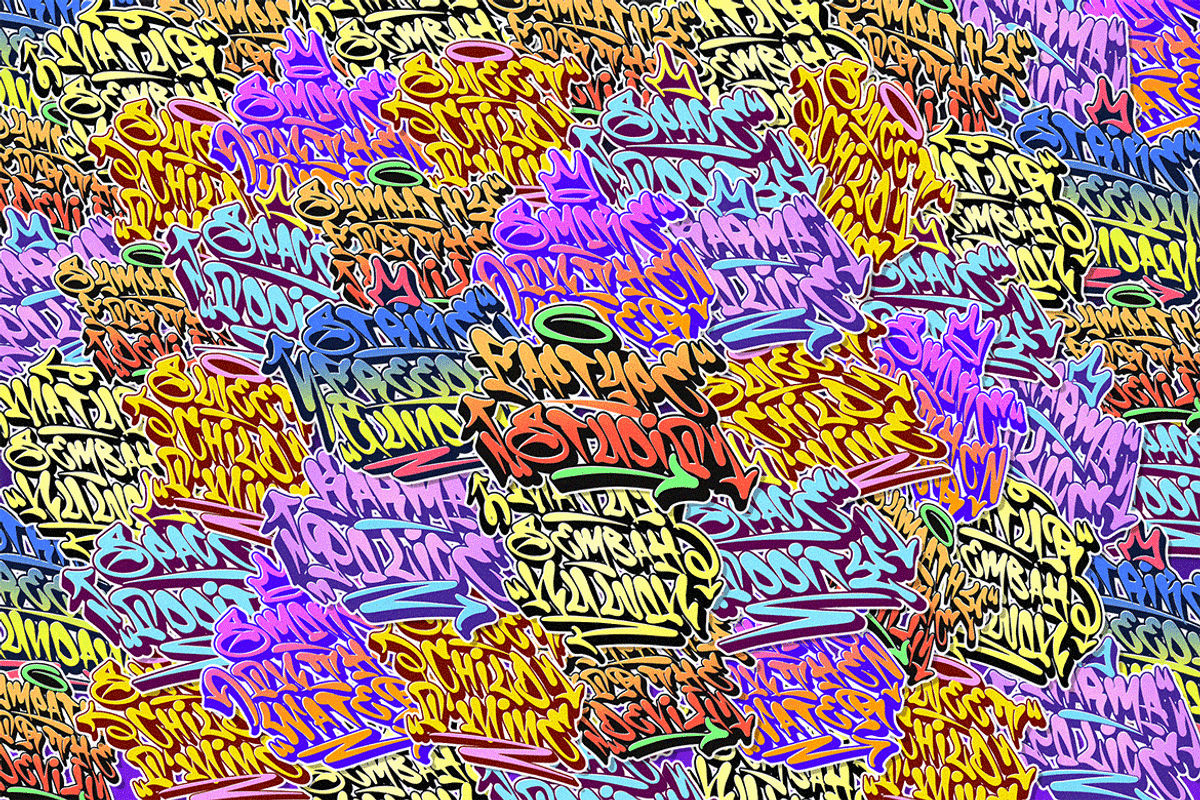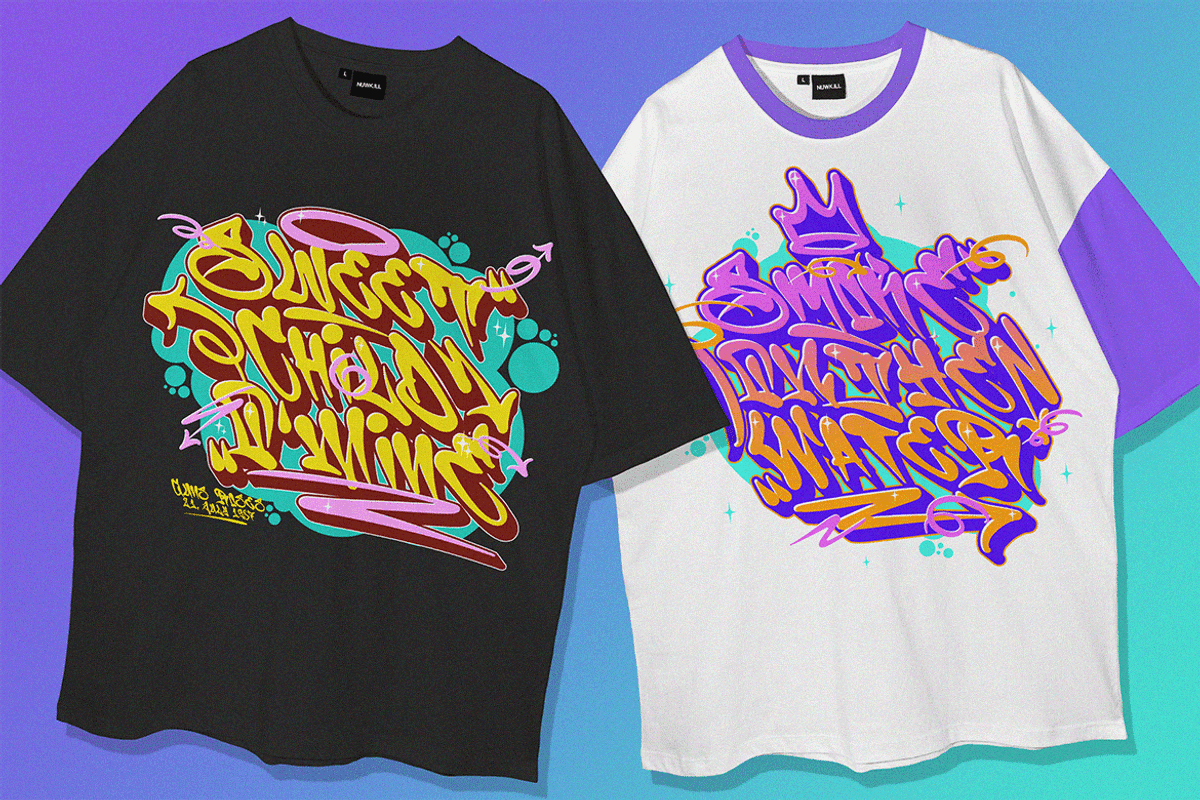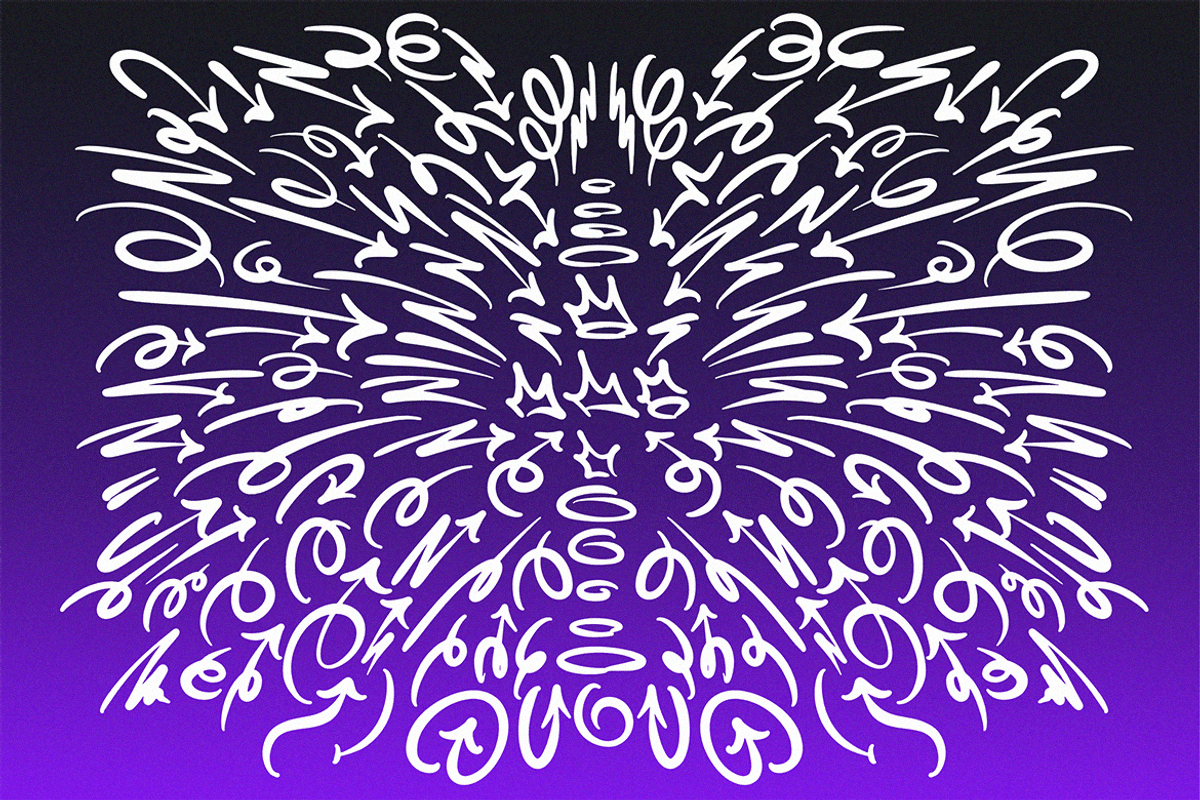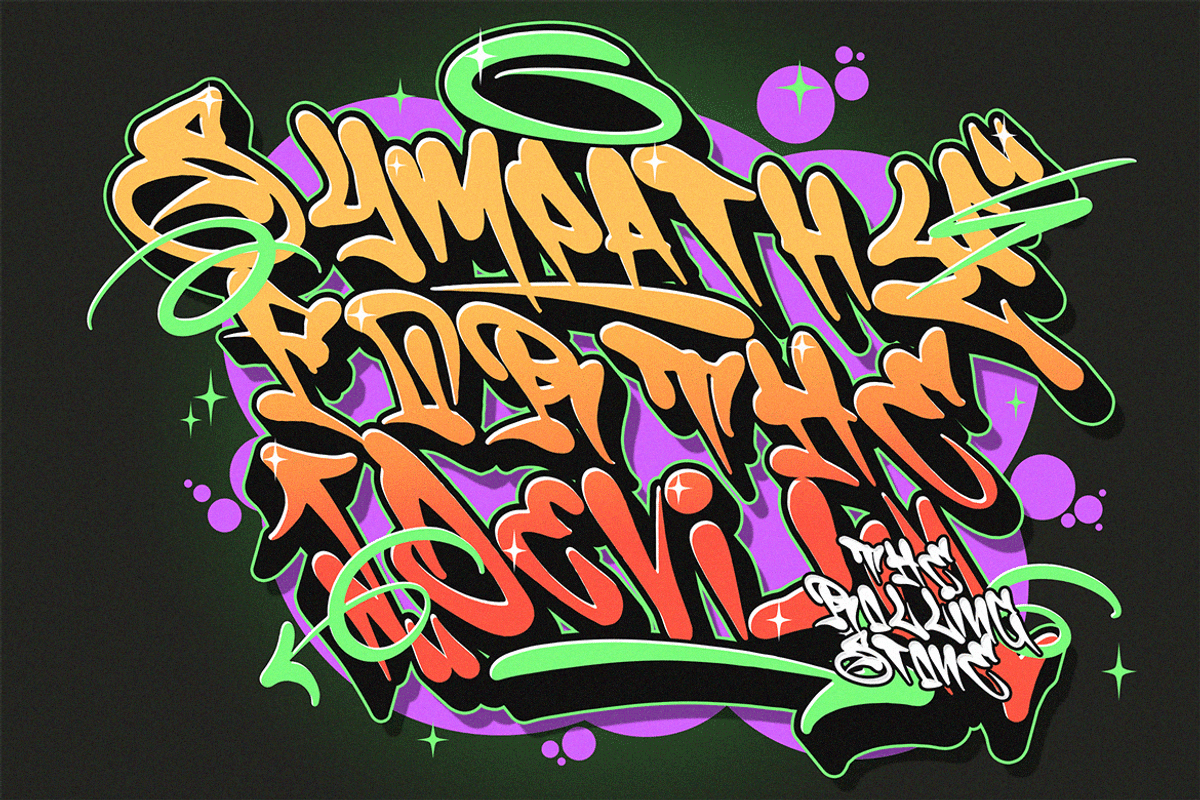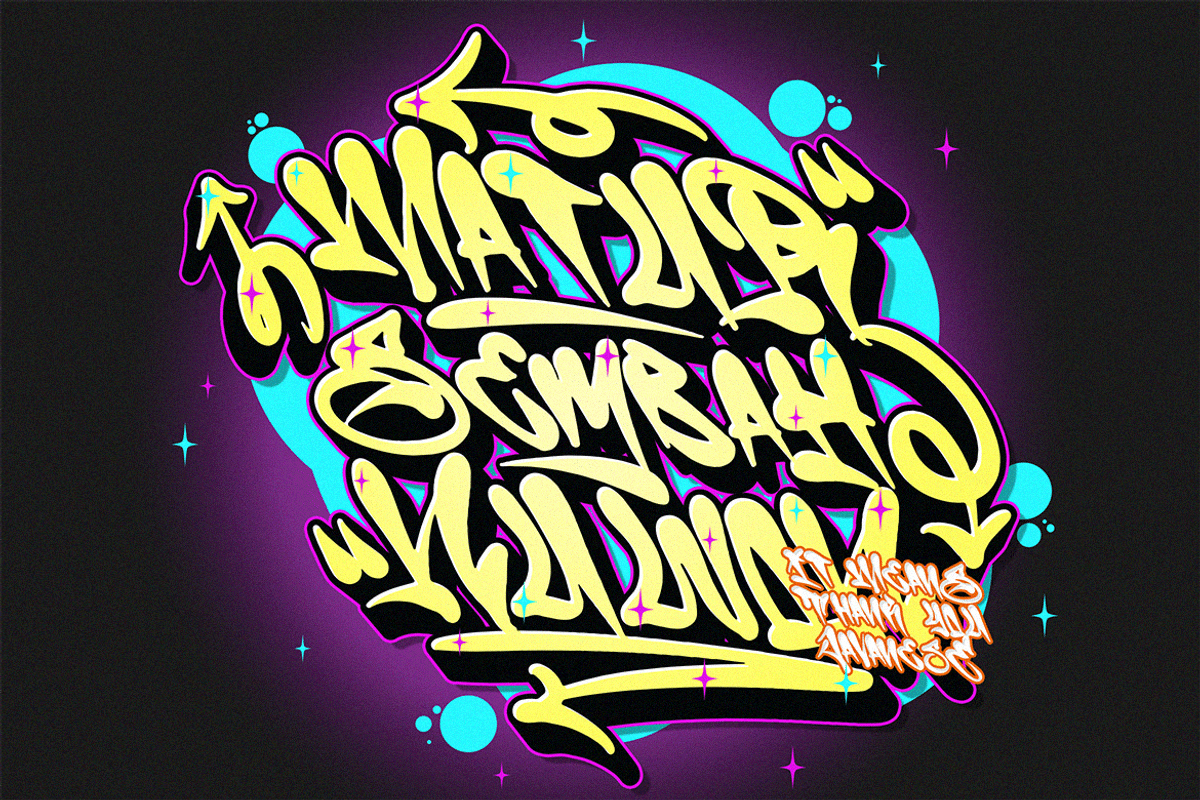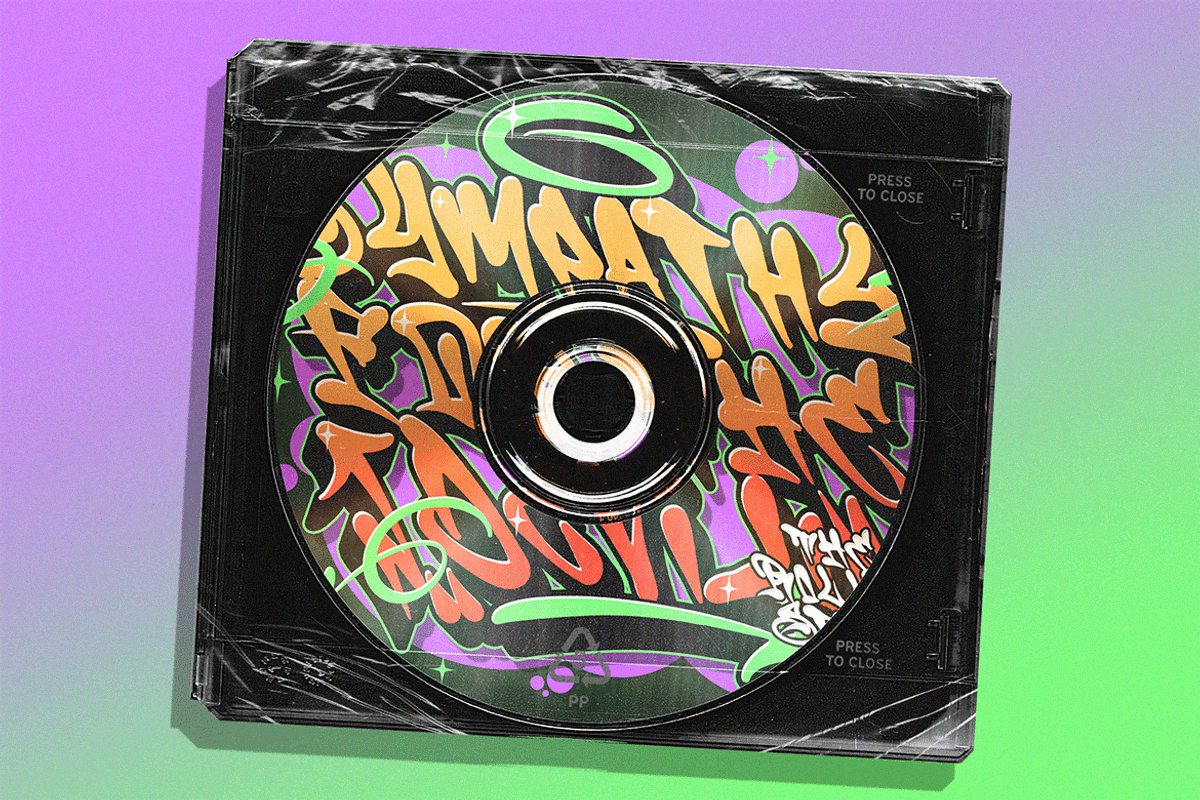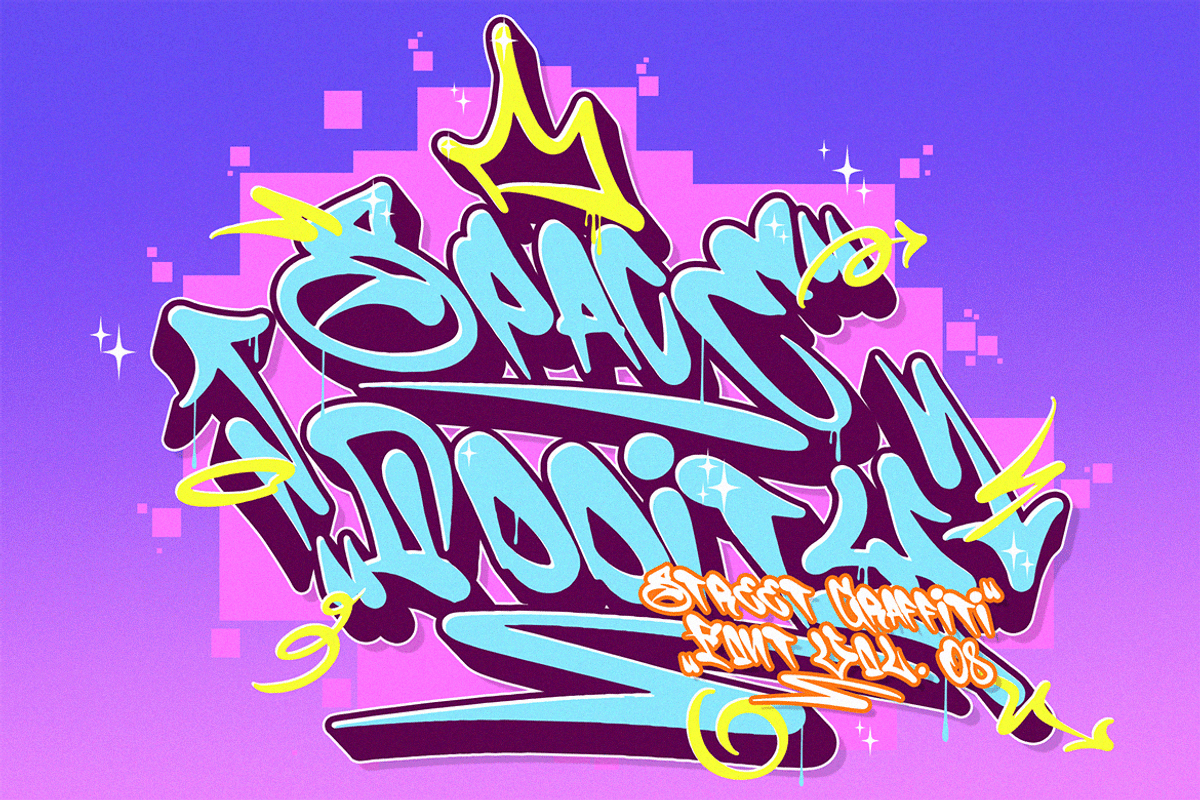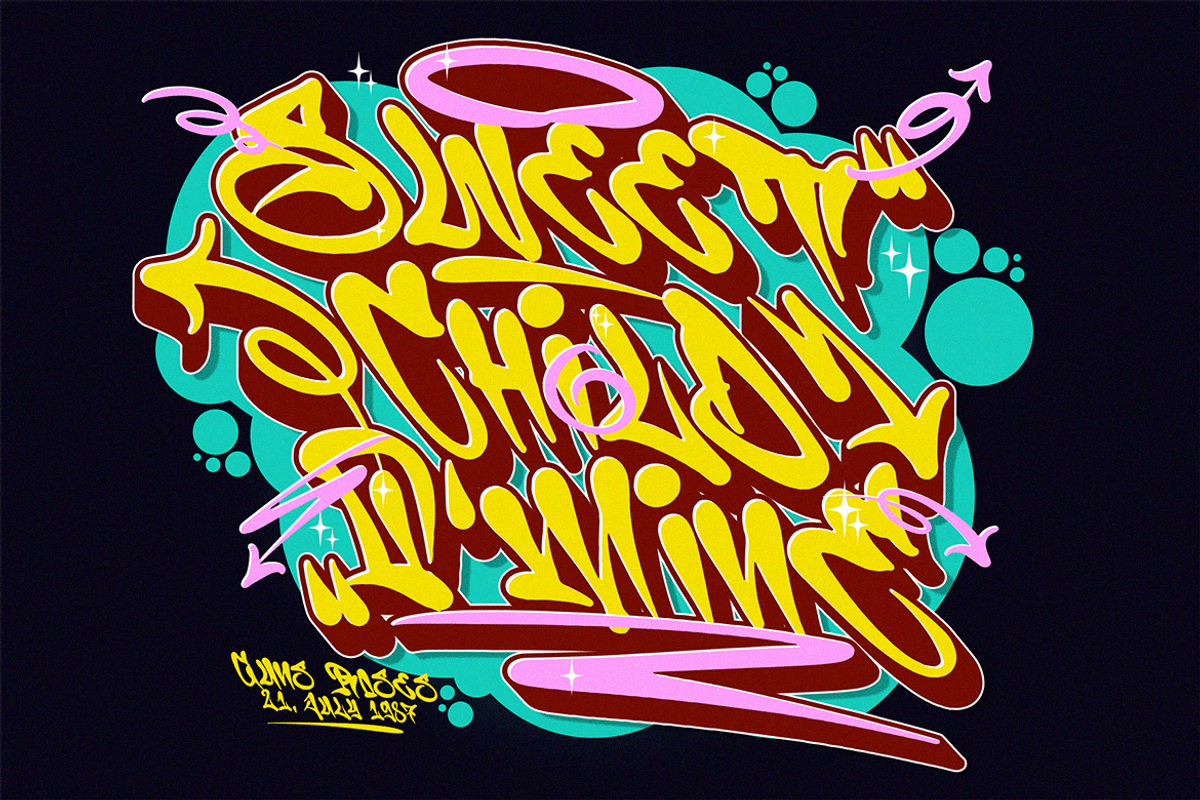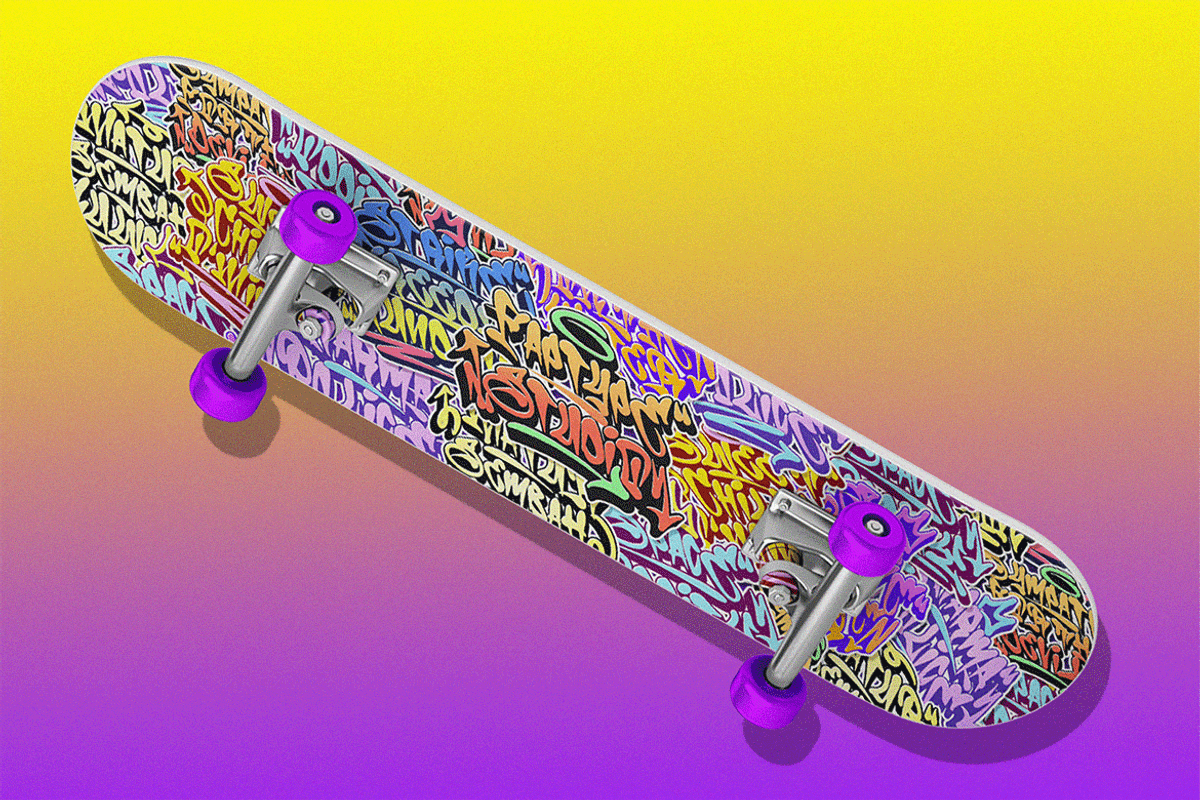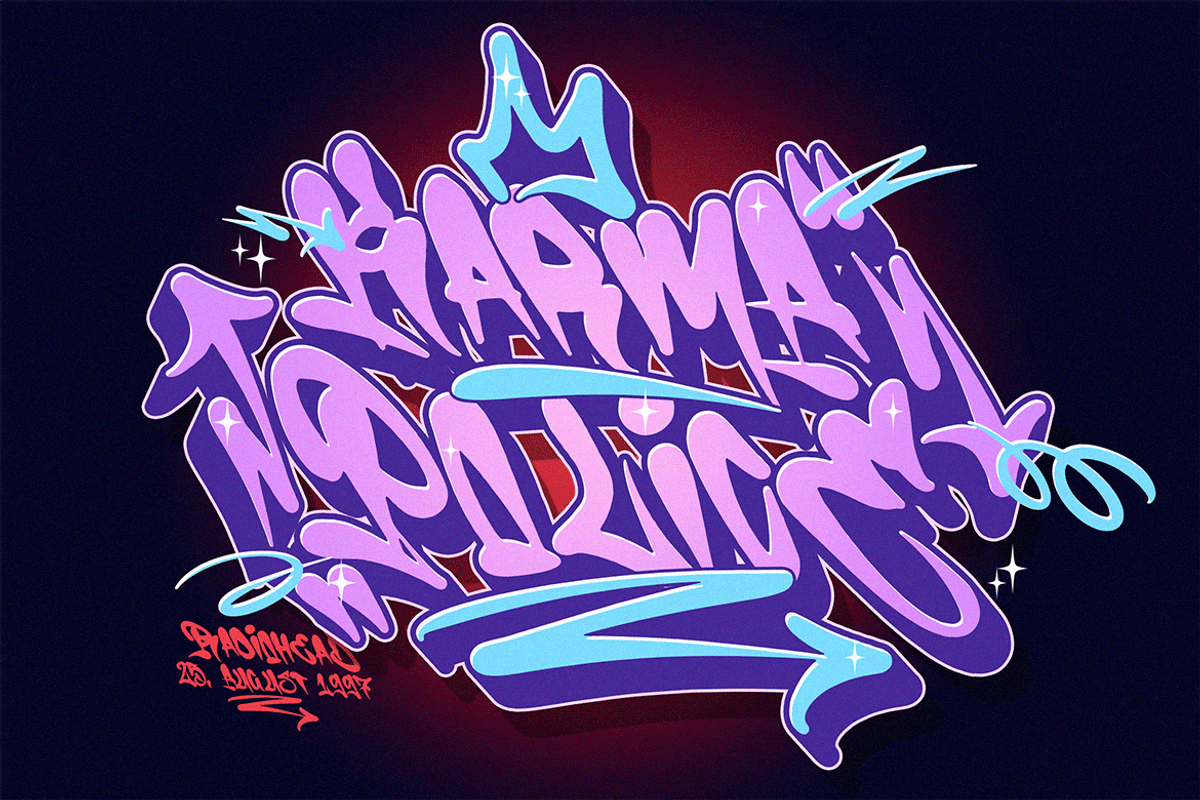
Space Oddity | Music Graffiti Font
Space Oddity is a bold and innovative street graffiti font that captures the essence of urban art with a futuristic twist. This unique font supports multiple foreign languages, ensuring your designs resonate across the globe. Featuring both uppercase and lowercase letters, Space Oddity offers flexibility and impact for any creative project.
Inspired by the dynamic and rebellious spirit of street tagging, Space Oddity brings your designs to life with its distinctive style. The font is perfect for graffiti artists and enthusiasts, offering a visually striking and entertaining way to write. Space Oddity also includes an array of street graffiti ornaments, adding authenticity and artistic flair to your work.
- Urban Art Projects: Elevate your murals, posters, and digital art with a bold, graffiti-inspired aesthetic.
- Branding: Create memorable and edgy logos that stand out from the crowd.
- Apparel Design: Design striking t-shirts, hoodies, and other streetwear items.
- Event Promotions: Add an eye-catching, urban touch to flyers, banners, and social media graphics.
- Web Design: Infuse your website with a gritty, street-style vibe through impactful headers and graphics.
- Merchandise: Customize products like skateboards, backpacks, and more with authentic graffiti style.
Take your creativity to the next level with the extruded version of Space Oddity, allowing you to create stunning 3D street-style graffiti projects. This feature adds depth and dimension, making your designs truly pop and bringing an additional layer of realism and boldness to your artwork.
Unleash your creativity with Space Oddity, the ultimate street graffiti font for those who dare to push boundaries and make a statement. Let your designs transcend the ordinary and enter a new dimension of urban artistry.
Space Oddity features:
- A full set of uppercase and lowercase
- Multilingual language support
- OpenType Features
- Layered Style
- +373 Total Glyphs
- +135 Graffiti Swashes and Ornaments included!